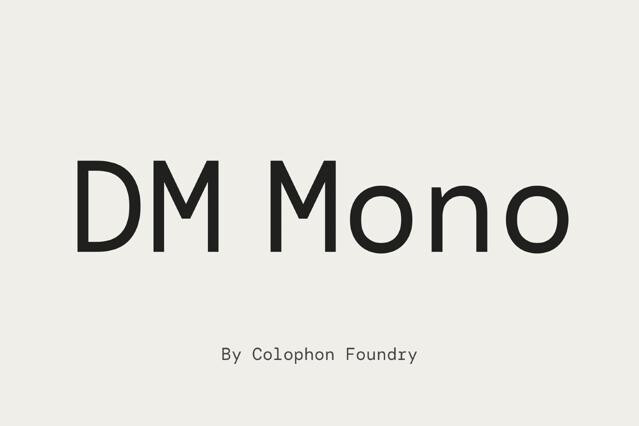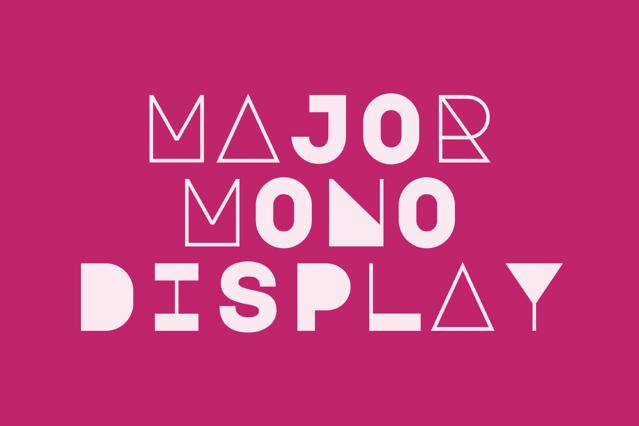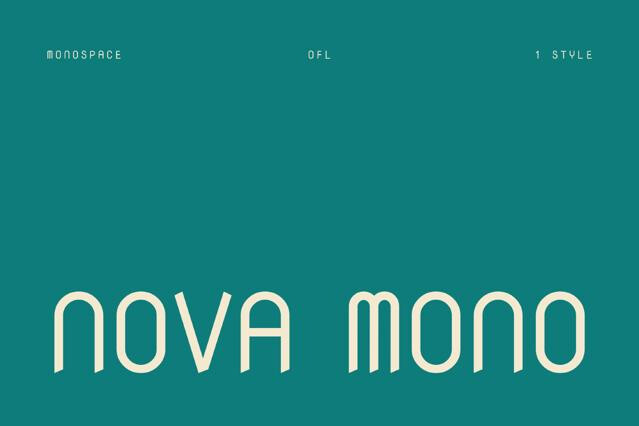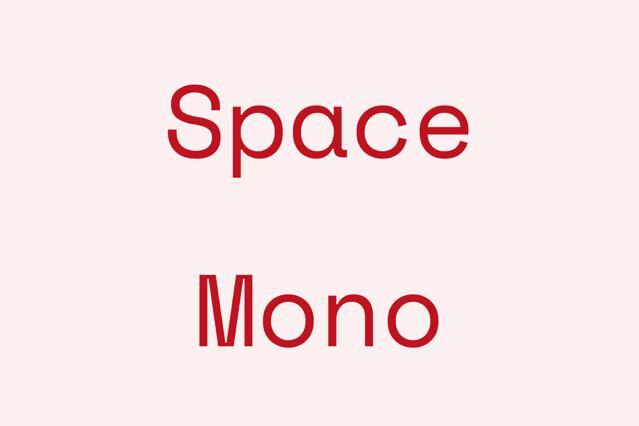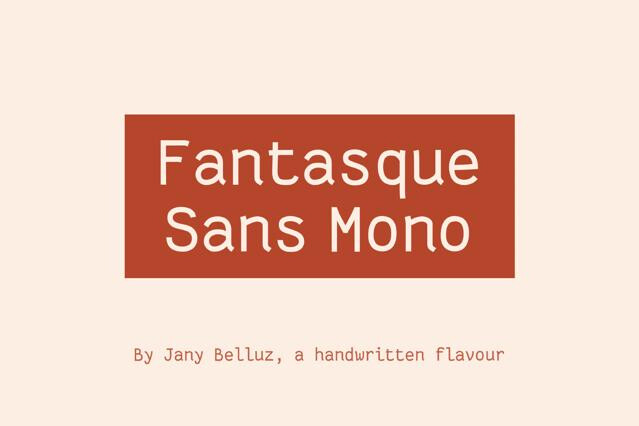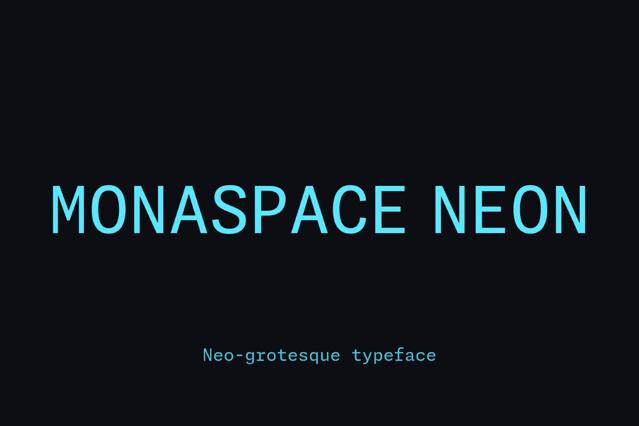
Monospace Fonts
Our monospace fonts come from a very strict deal: every character gets the same width, whether it deserves it or not. The deal was signed on typewriters and never renegotiated: code editors, terminals, and film scripts still run on it. Inside are coding families with ligatures, classic programming monos, corporate developer faces, editorial and mono-serif cuts, rounded and pixel monos.
Monospace fonts and the discipline of equal width
These are fonts where every character gets exactly the same width. The skinny i sits in a stall as wide as the one the m squeezes into, and text lines up in perfect vertical columns whether it wants to or not. This wasn't invented as a style. The typewriter physically couldn't vary its spacing; the carriage moved the same distance for every keystroke, so the letters had to be drawn to fill equal boxes. Their whole aesthetic is a mechanical limitation that outlived the machine.
The most famous monospace is Courier, drawn for IBM typewriters in 1955, and it picked up a second life that says a lot about how conventions form. Hollywood standardized on Courier for screenplays, to the point where the industry still measures films in it: one script page in 12-point Courier roughly equals one minute of screen time. Meanwhile programmers adopted the fixed grid for their own reasons: code is read vertically as much as horizontally, and columns that hold still make errors visible.
So a monospace font arrives carrying two histories at once, the bureaucratic typewritten page and the glowing code editor, and we now borrow both registers freely. Set a headline in mono, and it sounds technical, documentary, slightly anti-design, like the raw data before it was made pretty.
The monospace spectrum
• Coding families with ligatures: developer-first designs that merge symbol pairs for readability, the modern workhorses of the code editor.
• Classic programming monos: the established faces a generation of terminals and IDEs grew up on, clarity first, style second.
• Corporate developer fonts: monos commissioned by tech companies for their own ecosystems, built with accessibility research behind them.
• Instrument and cockpit monos: faces like B612, developed for Airbus flight displays, where legibility was a safety requirement before it was a style.
• Editorial and branding monos: designerly fixed-width faces, including mono serifs, made for identities and lookbooks instead of compilers.
• Rounded friendly monos: softened terminals and open forms, the technical register with its tie loosened.
• Typewriter-flavored monos: faces that keep the ribbon-and-carriage character of the original machines.
• Pixel monos: fixed-width bitmap designs where the grid discipline doubles down on itself.
Making monospace work in real layouts
The grid is the gift, so use it. In a proportional font, aligning small pieces of text into columns is a fight; in a mono, it happens by itself, every character occupying the same width. This makes monospace unbeatable for anything list-shaped: specs, schedules, tracklists, credits, tables of any kind.
And a specific superpower worth knowing about: numbers. In a monospace, every digit is the same width, which means numbers stacked in a column align perfectly and, crucially, don't shift when they change. Anywhere values update — dashboards, prices, timers, scores — a proportional font makes the layout twitch with every refresh, while a mono holds still. This is one of those cases where the font choice is solving an engineering problem, and the client will never know why the numbers feel so stable. You will.
Real jobs for a monospace
• Code editors, terminals, and documentation, the day job.
• Developer tool branding and tech startup identities.
• Data-heavy layouts: dashboards, reports, financial tables where columns must hold.
• Fashion editorials and portfolios borrowing the technical register on purpose.
• Captions, labels, and metadata in websites and print.
• Album art in the electronic and ambient corners, where music is presented as data.
• Zines and indie publishing with typewriter heritage.
Every character occupies the same width, so text aligns into a grid. Code becomes scannable, columns line up without tabs, and the whole thing carries a technical register that designers now borrow on purpose.
Weights that share identical character widths, so switching regular to bold changes nothing about the layout: no reflow, no shifted columns. For code editors and data tables this is a quietly critical property, because syntax highlighting often bolds words mid-line. Check the spec; not every mono family bothers.
Some programming fonts, Fira Code most famously, merge character pairs like => and != into single symbols for readability. Developers argue about them with real passion. For design work they're irrelevant; for a dev-tool brand they're a nice authenticity signal.
Increasingly, yes. A mono headline reads as technical, honest, and slightly anti-design, which suits developer tools, research, and fashion that wants to look like it doesn't try. The cost is efficiency: fixed widths eat horizontal space, and long mono paragraphs tire the eye.
The characters that cause bugs: 0 versus O, 1 versus l versus I, the shape of the braces. A coding font that fails the zero test is decorative, whatever its marketing says.